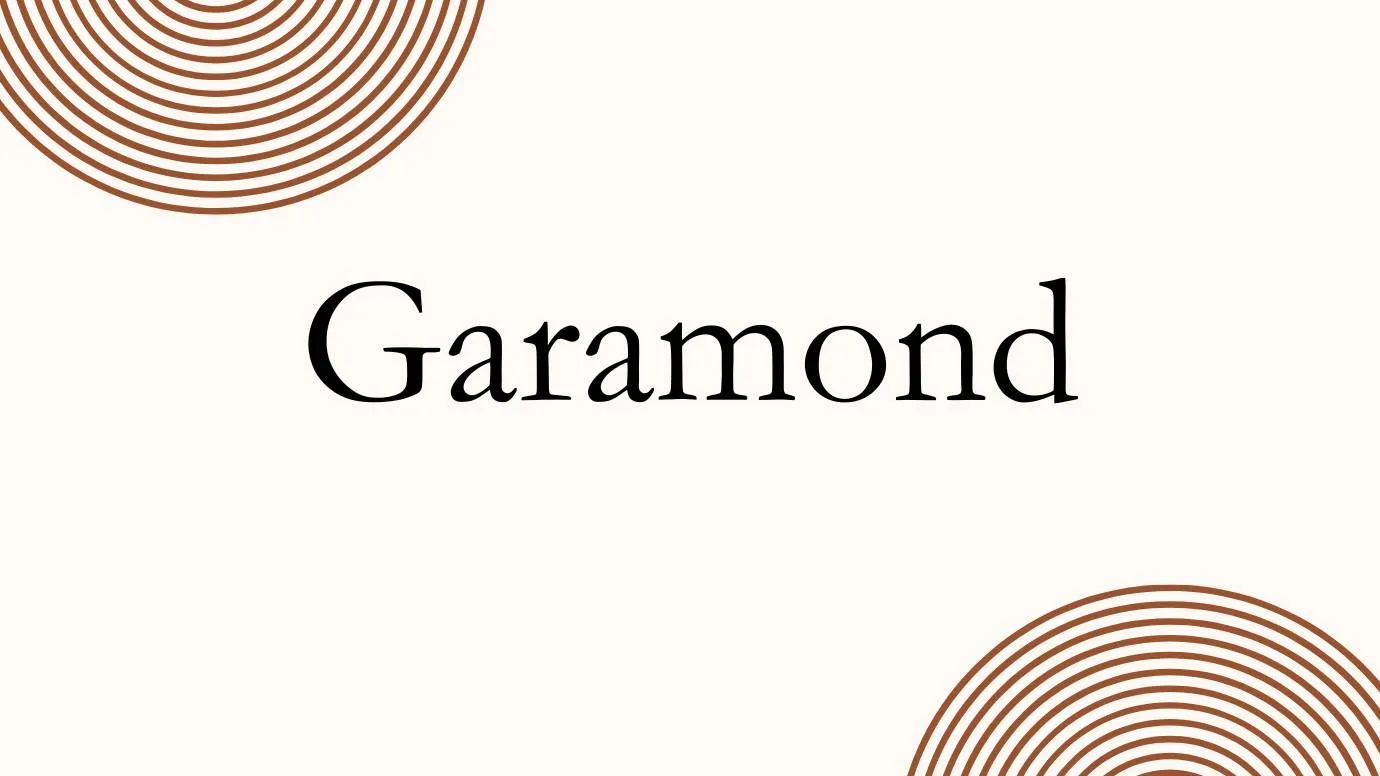
Garamond is a famous font family that has the best readability for textbooks named Garamond Font. This font is also good for printing and body text. It is also called an old-style font that belongs to the Serif font family.
Garamond Font
NameGaramond Font
DesignerClaude Garamond
TypeOld Style Serif